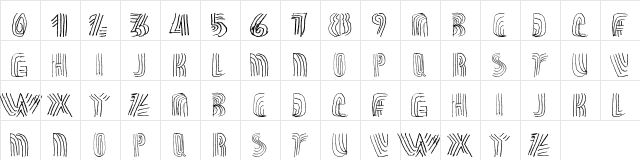
THRASHLINE Regular
| Foundry | BILLY ARGEL |
| Designer | Billy Argel |
Design Context for THRASHLINE Typeface
THRASHLINE is a composed and adaptable typeface that performs quietly and consistently across a wide range of design contexts.